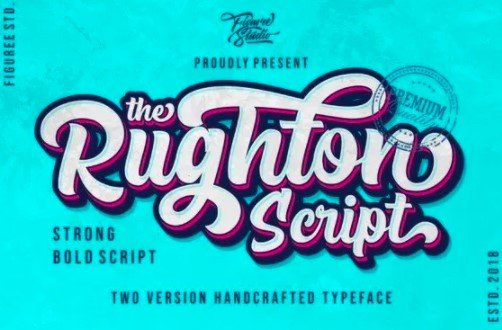
We are excited to present the striking and stylish typeface known as The Rughton Bold Script Font. This distinctive and elegant font includes opentype features that will elevate your design projects.
It is perfect to utilized it with the combination of cheri font getting more great styles, and features. You can combine used both fonts for getting great results that a single can not do. You can get good positive reviews on your freelancing sites.
This will be workable in all kinds of devices, applications and anywhere you want. It is perfect for titling, posters, banners, covers, and advertising projects.